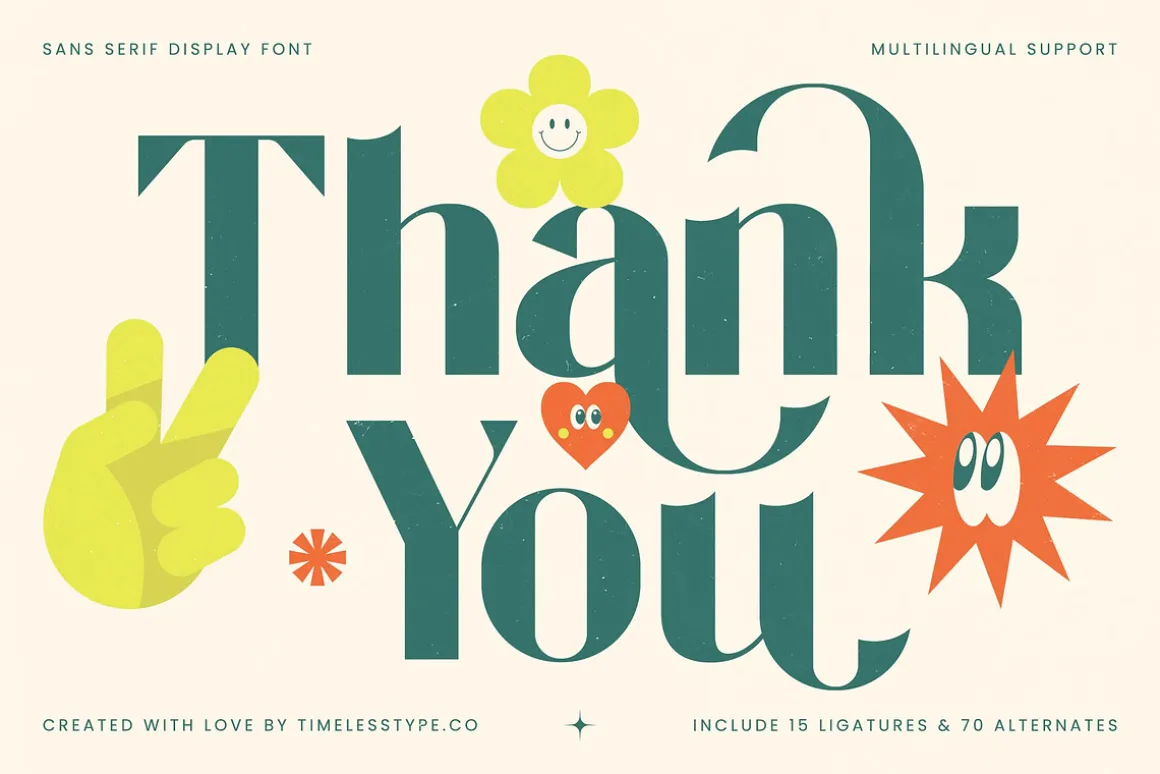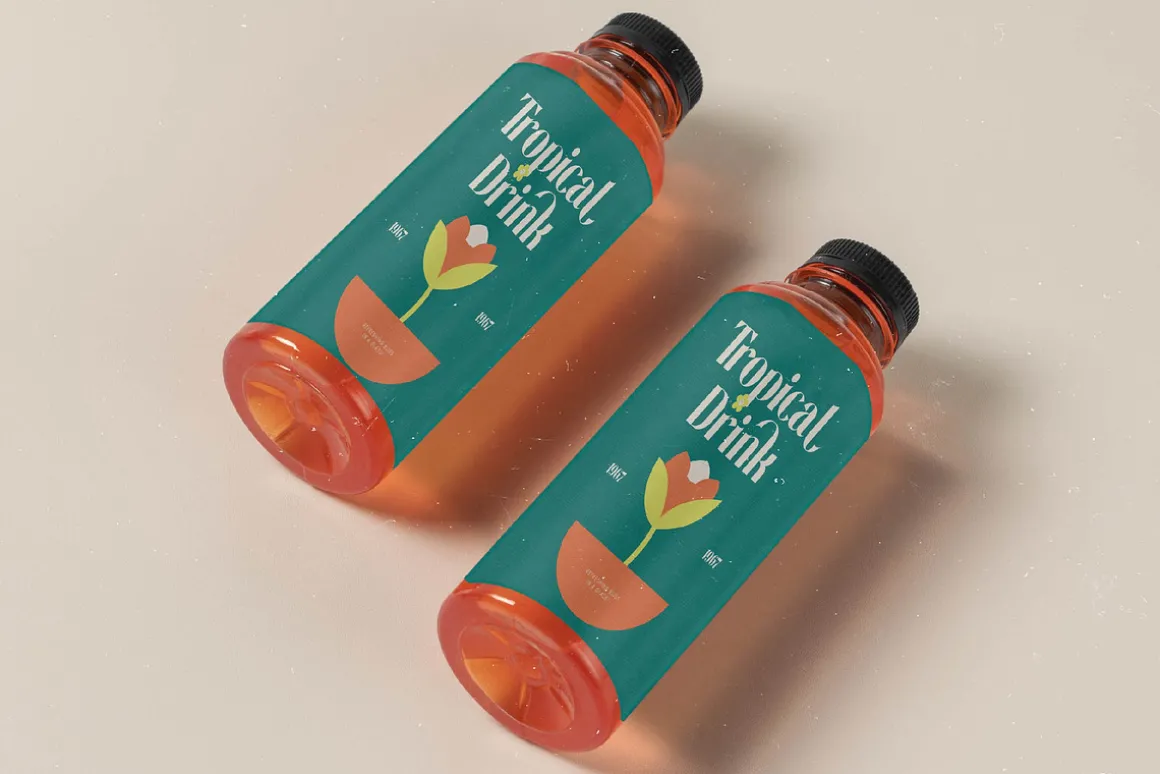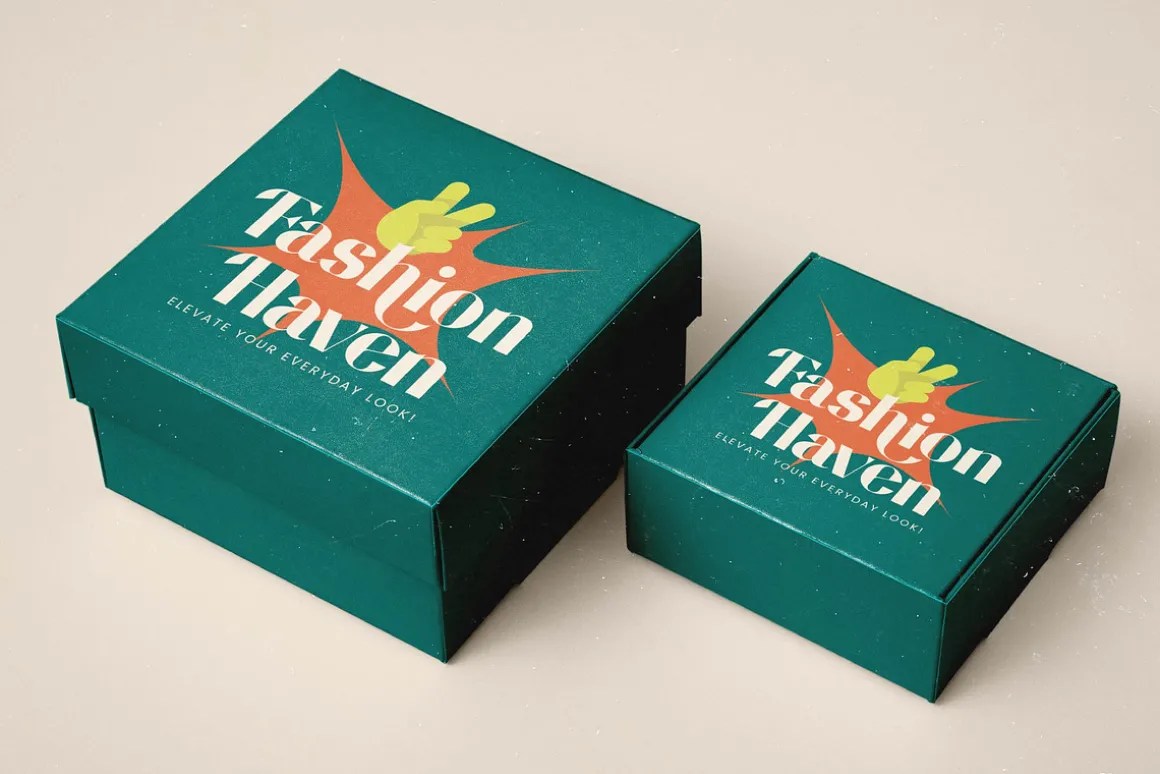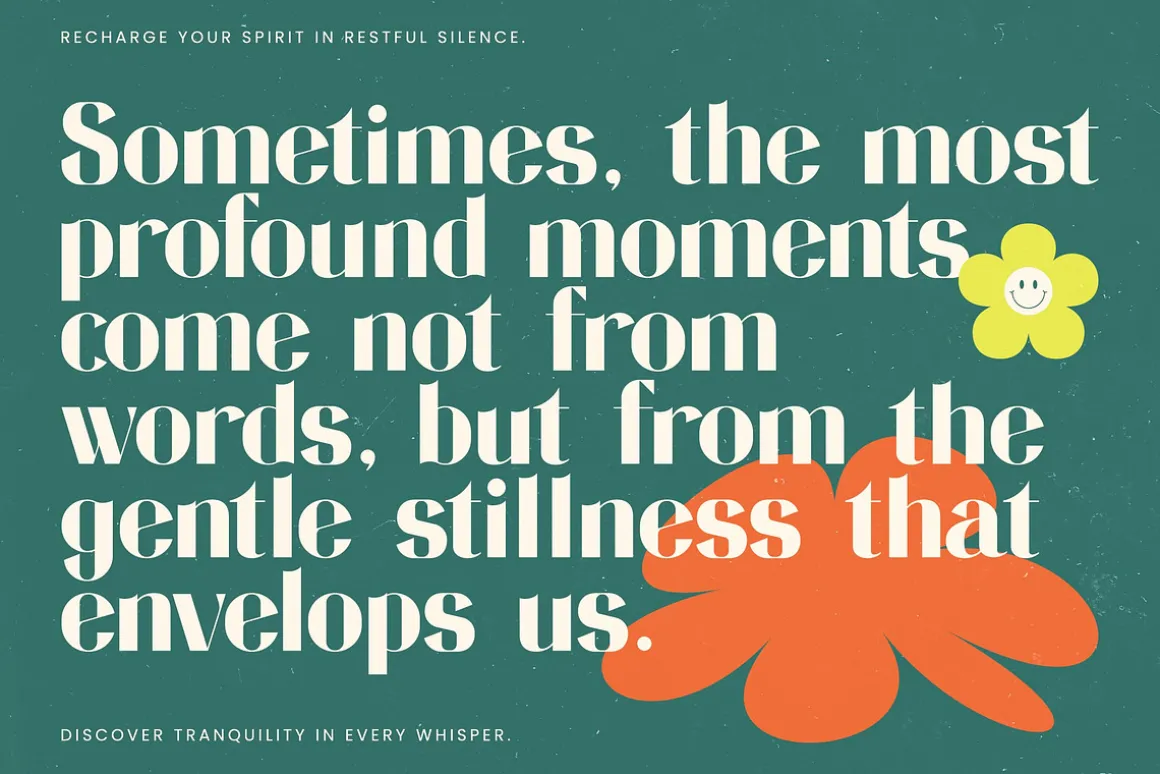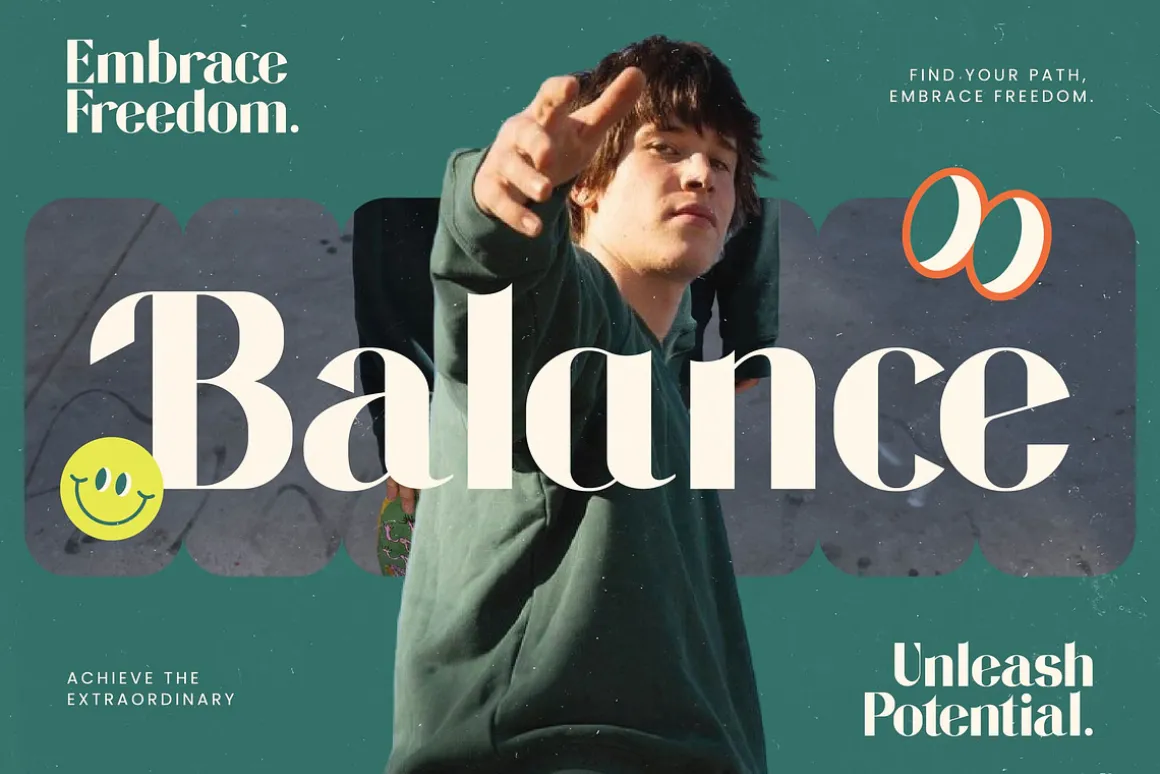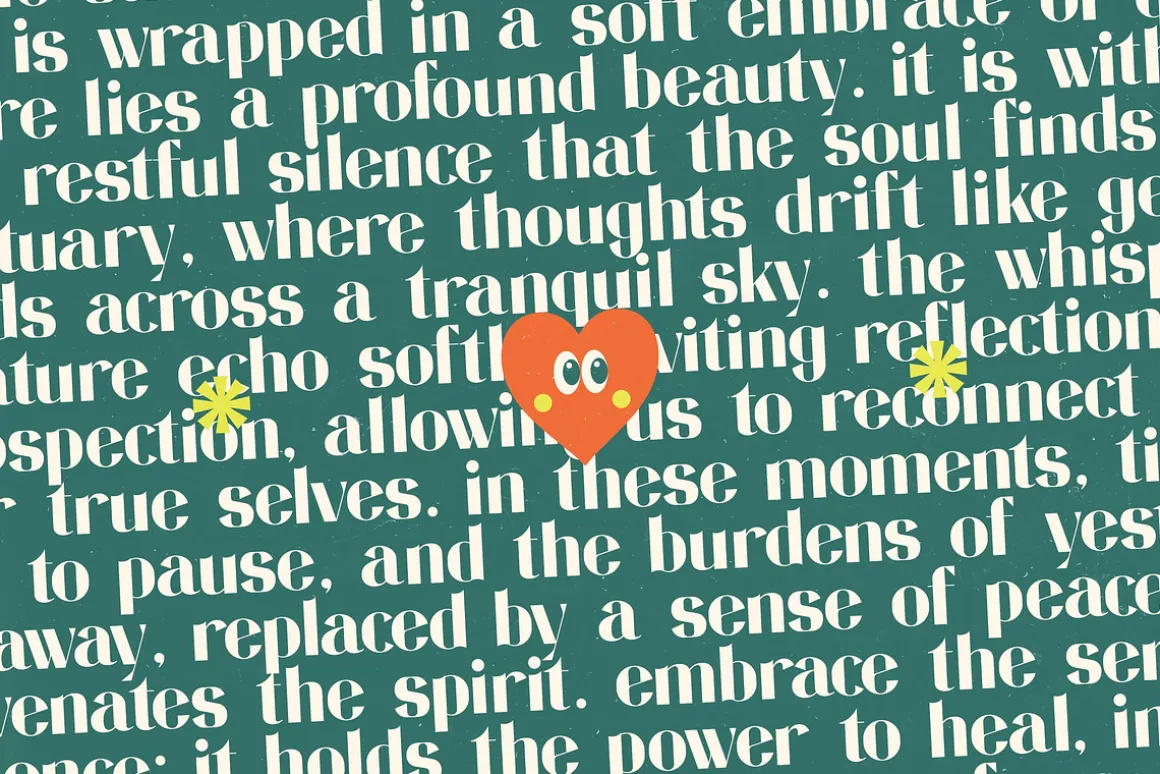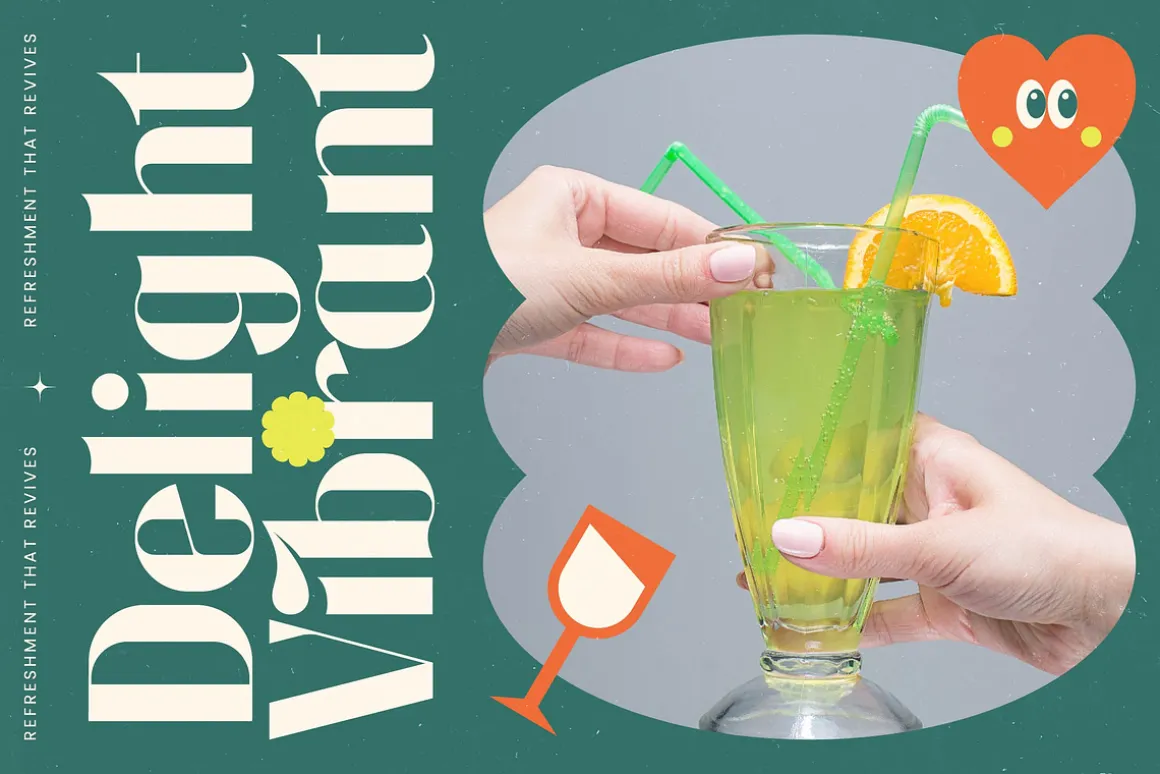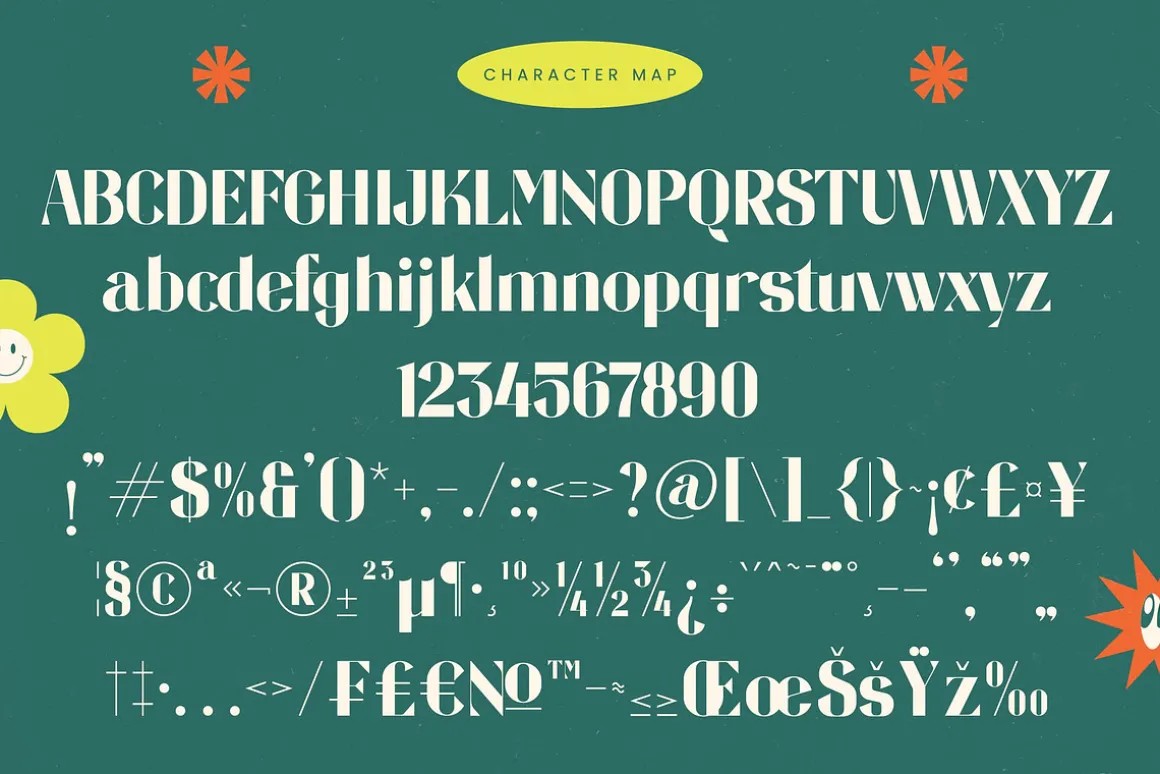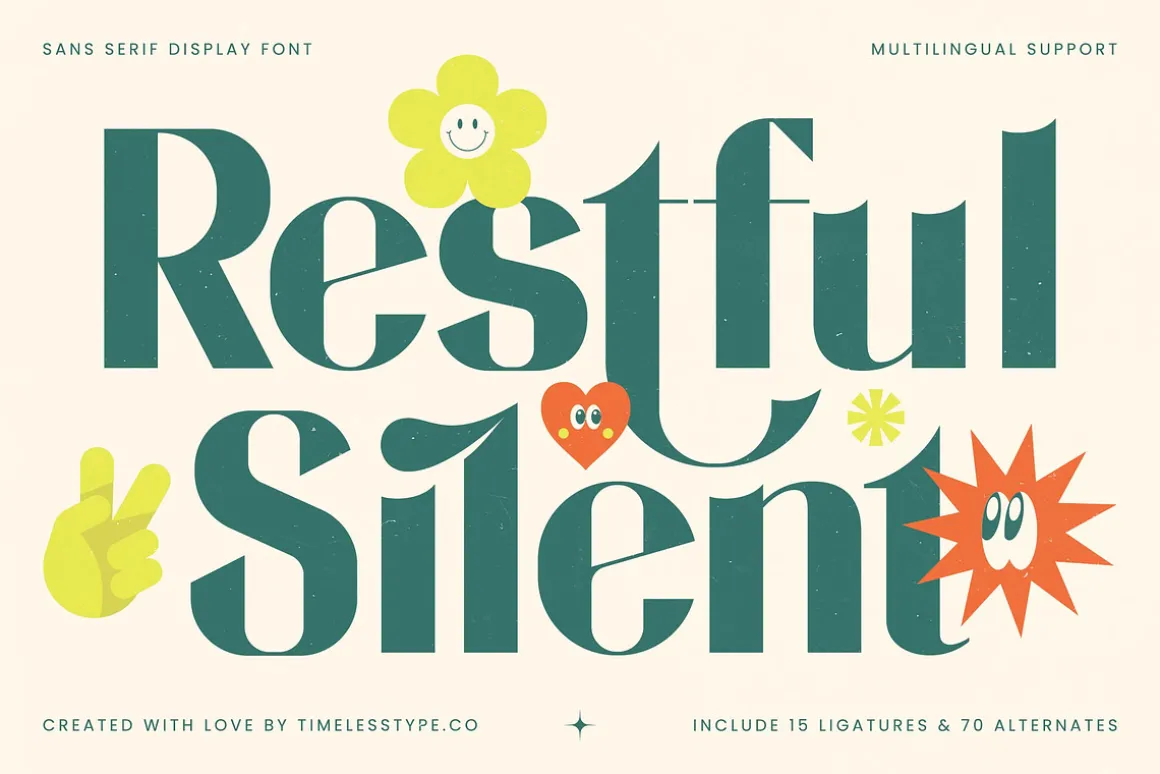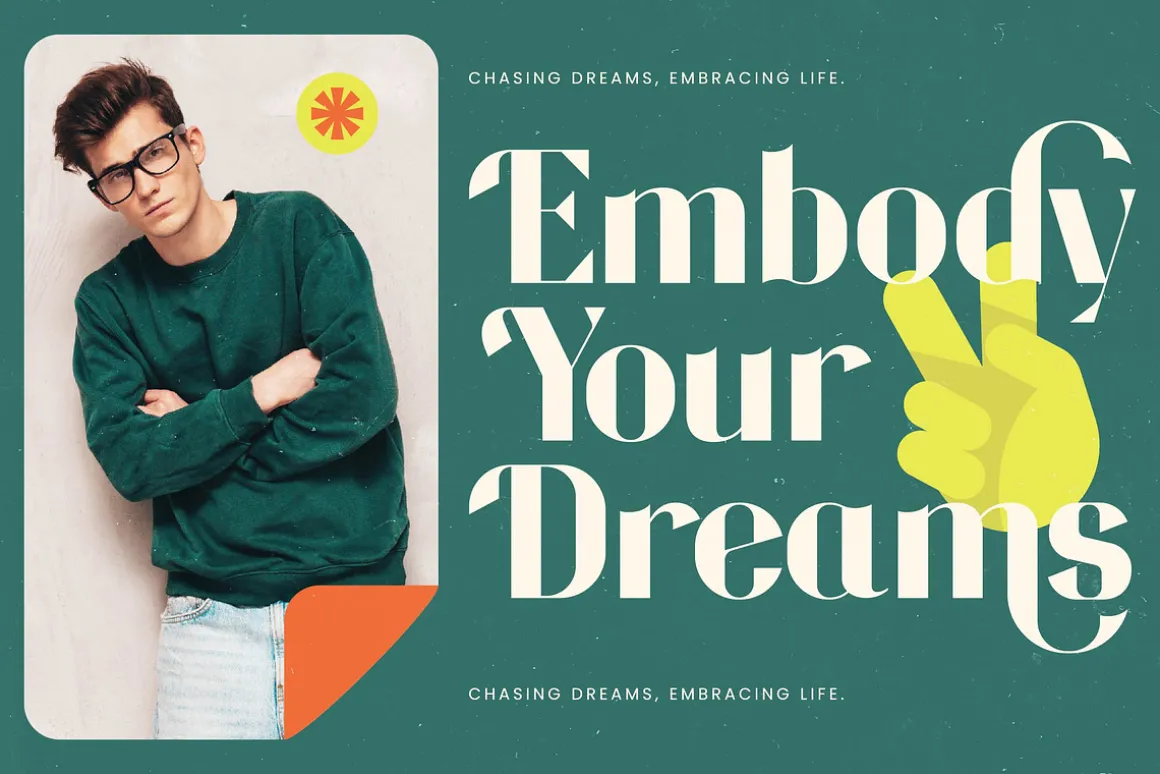
Restful Silent is a captivating journey into the heart of sophisticated design, where every curve tells a story of elegance and poise. This typeface breathes life into your creative vision, offering a perfect balance between bold presence and quiet luxury.
Inspired by the vibrant energy of retro aesthetics merged with a clean, contemporary edge, this font captures the essence of late-century chic. It draws from the playful yet refined spirit of vintage posters and high-end lifestyle magazines to create something entirely unique.
This modern serif display choice commands attention with its luxury typography feel and high-contrast serif appeal, making it an essential editorial font for projects requiring maximum branding impact. Its unique character is both loud and serene, allowing it to stand out effortlessly in a crowded visual landscape.
Riding the wave of the current modern serif trend, this typeface aligns perfectly with the shift toward editorial display fonts that prioritize uniqueness and artistic flair. It serves as a prime example of character-driven typography that meets the rigorous demands of today’s aesthetic-focused digital and print media.
From high-impact logo design and comprehensive branding systems to sophisticated editorial layouts, this font excels across diverse platforms. It is particularly well-suited for luxury packaging, romantic wedding stationery, and avant-garde fashion campaigns that require a touch of class.
The package includes a rich set of 15 ligatures and 70 alternates that provide endless creative possibilities for custom-looking layouts without extra effort. It also features comprehensive multilingual support and a wide range of international characters, ensuring your message reaches a global audience with clarity.